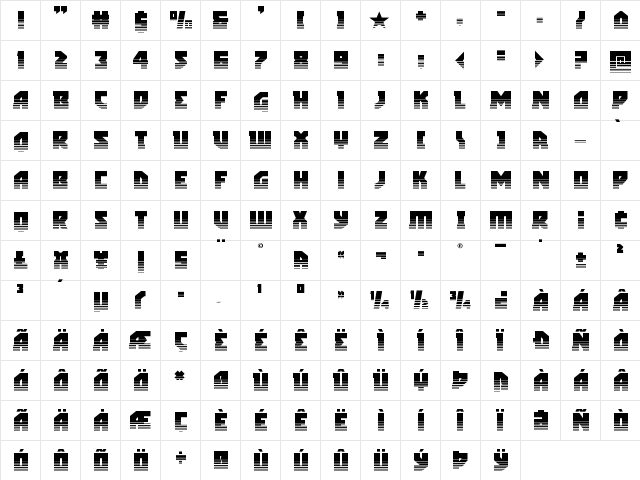
Arctic Guardian Twotone Regular Font Preview
Arctic Guardian Twotone Regular
Design Context for Arctic Guardian Twotone Typeface
Arctic Guardian Twotone is a composed and adaptable typeface that performs quietly and consistently across a wide range of design contexts.